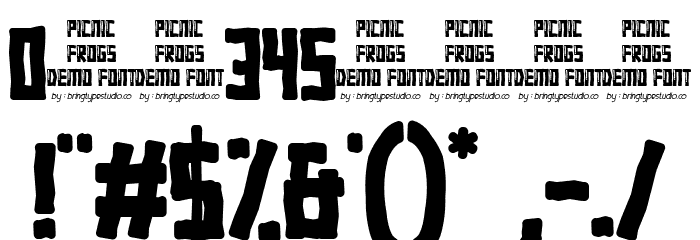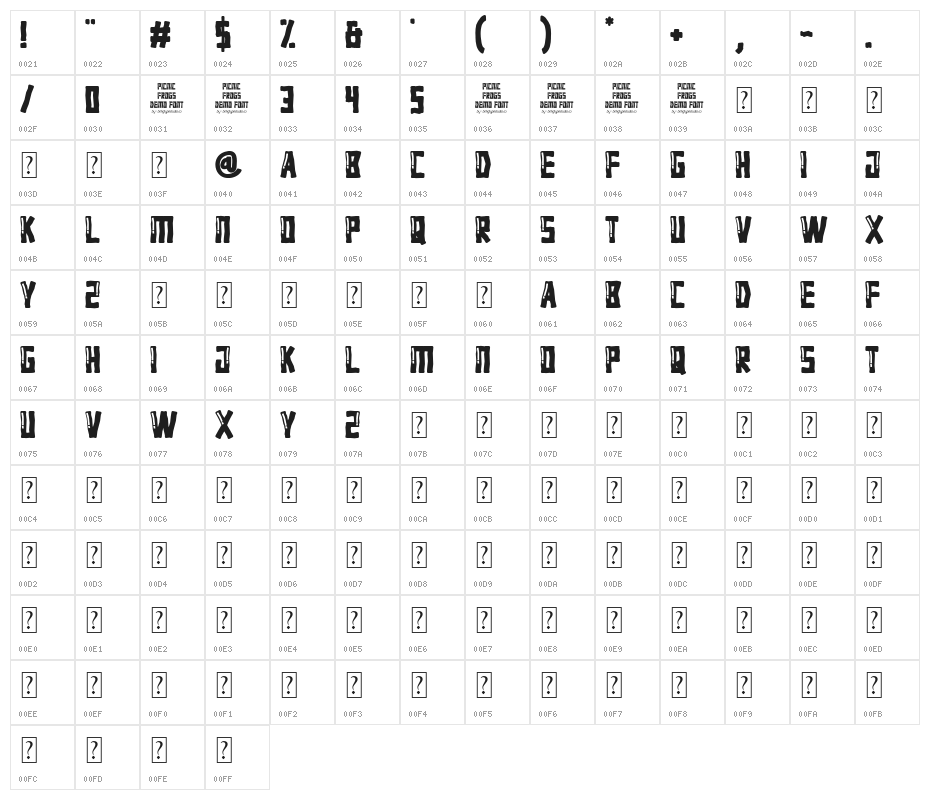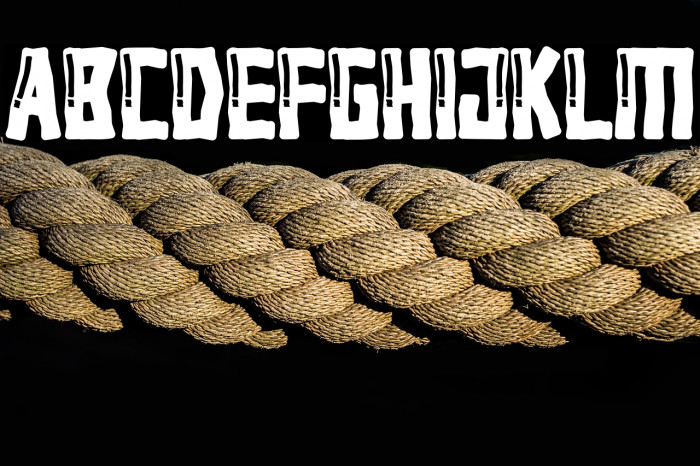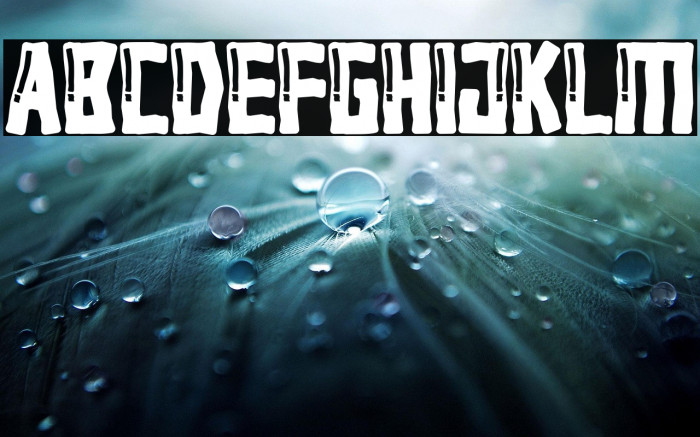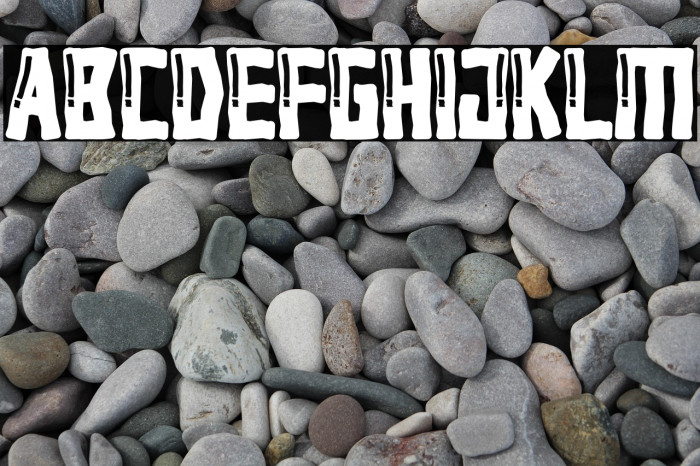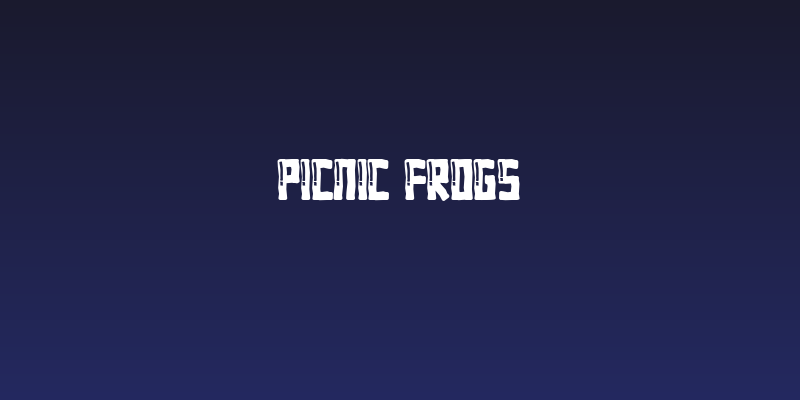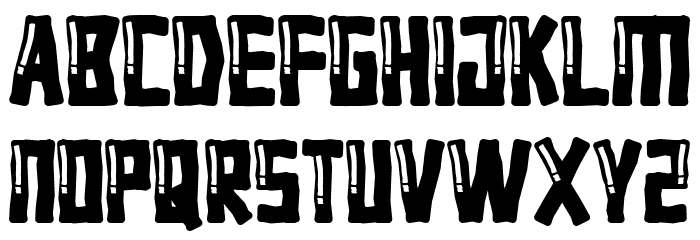
Picnic Frogs Font
Picnic Frogs Description
This font features a playful and quirky design, characterized by its bold and irregular strokes. The letters have a hand-drawn appearance, with uneven edges and a slightly distressed look, giving it a unique and artistic feel. The uppercase and lowercase letters maintain a consistent style, with exaggerated serifs and varying line thicknesses that add to its whimsical charm. The numbers and special characters follow the same design principles, ensuring a cohesive look across all glyphs. This font is perfect for projects that require a fun and informal touch, making it ideal for creative and artistic endeavors.
| Proposed Projects | Ideal for children's books, playful branding, creative posters, and artistic invitations. |